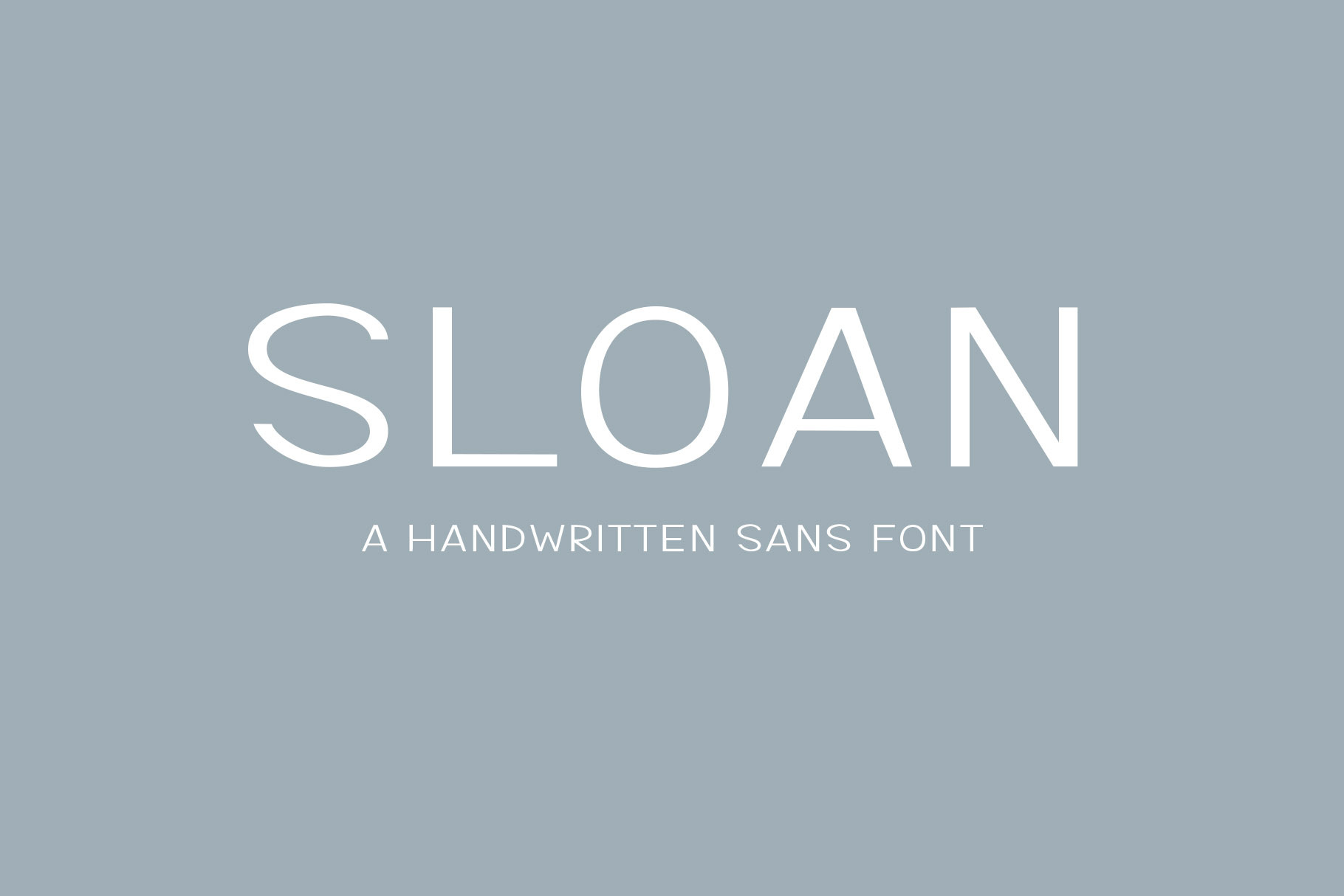
Sloan is an all caps handwritten sans serif font that comes in four weights, and italics. Started as handwriting and was carefully edited to become a font that can be used for all your needs. From headlines, to invitations, to logos Sloan is the missing piece to complete any design!
Includes 5 fonts! Sloan Regular, Italic, Light, Bold and Extra Bold.